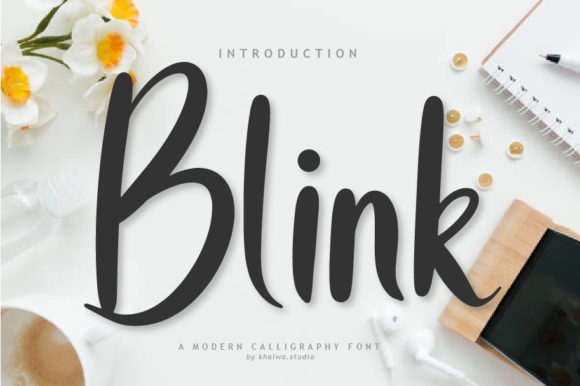
Indulge in the captivating allure of Blink Script, a font that embodies the essence of timeless elegance and handwritten charm. Its intricate curves and delicate strokes dance across the page, evoking a sense of heartfelt authenticity and enduring beauty.
Crafted by the skilled artisans of khalwa.studio, Blink Script is the perfect choice for those seeking to create a lasting impression. Whether you're designing eye-catching logos, crafting unforgettable branding, or sharing heartfelt quotes, this font will elevate your creations with a touch of sophistication and grace.
Each letter in the Blink Script family is a masterpiece, meticulously designed to convey a unique and captivating quality. Its swashes and flourishes add a touch of whimsy and playfulness, while its solid characters provide a foundation of stability and strength.
This versatility makes Blink Script the ideal companion for a wide range of design projects. From wedding invitations that exude romance and elegance to branding that conveys a sense of warmth and authenticity, Blink Script effortlessly adapts to your creative vision, transforming your words into works of art.
If you're seeking a font that will make your designs shine with timeless appeal and heartfelt charm, look no further than Blink Script. Its exquisite craftsmanship and versatility make it the perfect choice for those who value the power of beautiful typography.
Experience the magic of Blink Script today and let your words dance with timeless elegance.